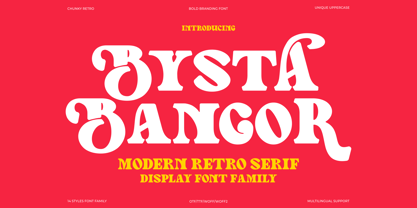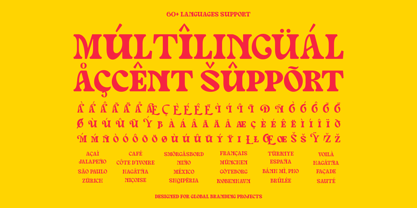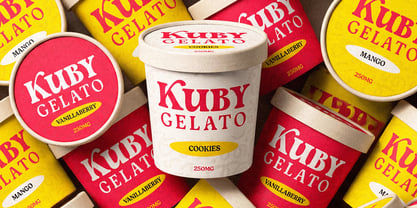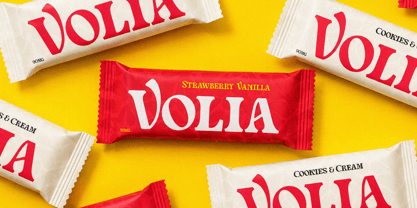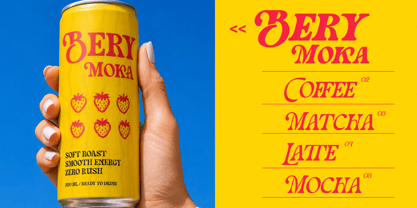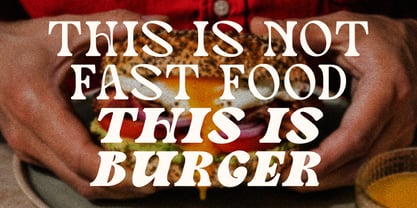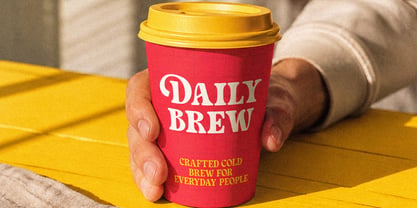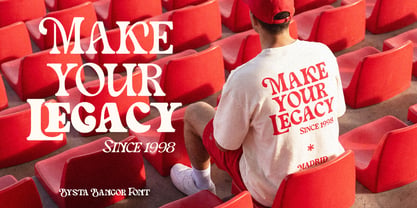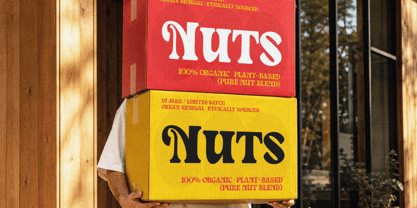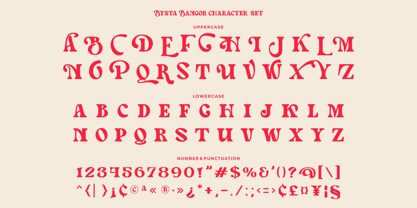
Meet Bysta Bangor, a modern retro display font family created for food branding, café logos, restaurant menus, packaging, signage, and bold visual identities.
With chunky letterforms, playful curves, expressive serifs, and a nostalgic food-branding flavor, Bysta Bangor gives your typography a warm, appetizing, and impossible-to-ignore personality.
It is perfect for designs that need to feel bold, playful, handcrafted, nostalgic, and commercially appealing.
Best Used For
• Food and beverage branding
• Restaurant and café logos
• Burger brands and snack packaging
• Gelato labels and dessert branding
• Coffee cups and café menu designs
• Beverage cans and drink labels
• Product packaging and label designs
• Posters, signage, and storefront graphics
• Apparel graphics and merchandise
• Sticker designs and social media content
• Brand identity systems
• Web banners and digital promotions
• Canva templates and campaign visuals
• Bold editorial display typography
What Makes It Stand Out
Bysta Bangor blends bold vintage character with playful modern-retro energy, making it perfect for brands that need typography with flavor, warmth, and a strong visual personality.
Its chunky yet stylish letterforms help your designs stand out on shelves, menus, storefronts, packaging, merchandise, and digital campaigns.
The included slanted style versions add extra movement, emphasis, and visual contrast, giving you more flexibility when creating logos, headlines, packaging compositions, and dynamic brand systems.
Designed as a practical display font family, Bysta Bangor is made for real-world branding projects, not just decorative headlines. Use it to create confident logos, appetizing packaging, bold menus, playful merchandise, and memorable food-brand visuals with ease.
Font Features
• Modern retro display font family
• 14 display styles, ranging from Light to Black
• Slanted style versions included
• Bold vintage-inspired letterforms
• Playful curves and expressive serifs
• Strong and distinctive branding personality
• Unique uppercase characters
• Lowercase characters
• Numerals and punctuation
• Multilingual support